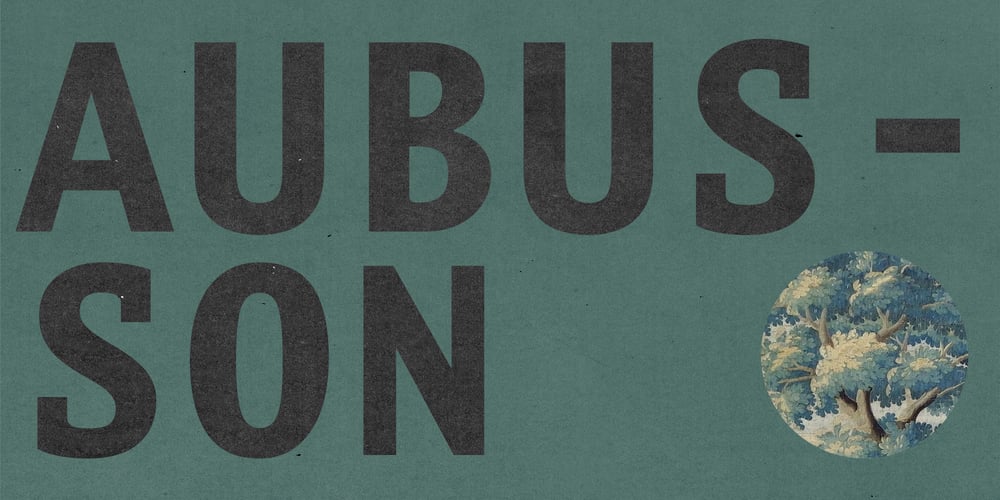
Aubusson Font Family was designed by Franck Jalleau and published by Black Foundry. Aubusson contains 7 styles and family package options. Aubusson: a typeface blooming from the loom.Born from the brilliant imagination of Franck Jalleau and the meticulous craftsmanship of Black Foundry’s designers. The original designer’s vision for Aubusson was inspired by the iconic tapestries of the “Cité internationale de la tapisserie d’Aubusson” in France. He wanted to capture the essence of the grid-like patterns formed by the interwoven threads while infusing a sense of warmth and organic calligraphy-inspired shapes to reflect the artistery of the tapestries.The journey of Aubusson began with a deep exploration of the traditional tapestry art, where Franck Jalleau immersed himself in the delicate intricacies of its patterns and textures. This profound understanding allowed him to translate the essence of those exquisite threads into a monospaced typeface design. The challenge was to maintain the precision of monospacing while imbuing the characters with a humanistic touch, creating a truly unique and engaging experience.Black Foundry’s designers masterfully expanded and refined the initial concept of Aubusson, developing a versatile multi-purpose typeface that spans from Light to Black on both Roman and Italic styles. The Black weight is meant for eyecatching headlines, exclusively available in Roman, and is not part of the variable font. This extended design space empowers users to convey a wide range of emotions and messages through their typographic expressions.Aubusson has been thoughtfully equipped with a generous glyph-set, catering to the needs of diverse languages using the Latin alphabet. Additionally, the typeface includes dingbats ornaments that add an extra layer of sophistication and beauty to any design. From display headlines to small paragraphs, Aubusson shines gracefully in various contexts, making it a versatile choice for designers seeking both elegance and functionality.With Aubusson, we invite you to embrace the rich tapestry of human expression, where history and innovation intertwine to create a typeface that will stand the test of time. We are humbled and excited to present this masterpiece to the world, and we genuinely believe that Aubusson will not only capture the attention of readers but also become an invaluable tool for designers seeking to elevate their creations. We hope you embark on this creative journey with us and explore the wonders that Aubusson has to offer.